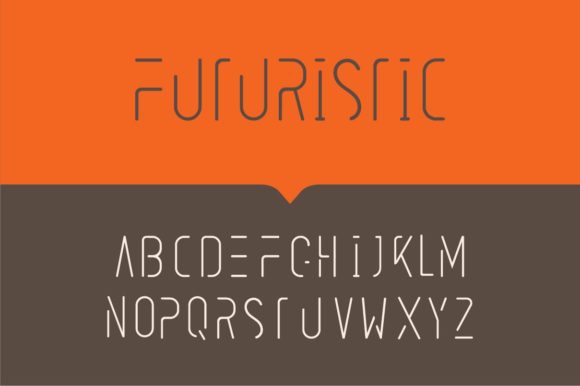
Futuristic Font: Elevate Your Designs with a Cute and Modern Display Font
In the realm of design, fonts play a pivotal role in bringing creative ideas to life. Among the myriad of fonts available, the Futuristic Font stands out for its unique blend of cuteness and modernity, coupled with an incredibly futuristic feel. This article aims to explore the characteristics, uses, and benefits of the Futuristic Font, making it a go-to guide for designers and crafters looking to elevate their projects.
What is Futuristic Font?
Futuristic Font is described as a cute and modern display font, specifically crafted to infuse any creative project with a futuristic vibe. Its design is not just about aesthetics; it’s about making a statement. Whether you’re working on digital content for Instagram, crafting calligraphy scripts for DIY projects, or brainstorming innovative ideas, this font is designed to turn your visions into true pieces of art.
Key Features of Futuristic Font
- Unique Aesthetic: The font boasts a distinctive look that is both cute and modern, setting it apart from more traditional fonts.
- Versatility: It’s incredibly versatile, suitable for a wide range of projects from digital media to print.
- Legibility: Despite its futuristic feel, the font maintains a high level of legibility, making it perfect for titles, headings, and short texts.
- Emotional Impact: The font has an undeniable charm that can evoke a sense of innovation and forward-thinking.
Uses of Futuristic Font
The applications of Futuristic Font are vast and varied. Here are some popular uses:
- Social Media Graphics: For Instagram posts, stories, and bio, this font can add a modern and engaging touch.
- DIY Projects: Whether you’re making handmade cards, posters, or craft items, Futuristic Font can add a unique flair.
- Branding: For startups and businesses looking to convey innovation and modernity, this font can be a great choice for logos and marketing materials.
- Web Design: Use it for headings and titles to create a striking first impression on your website.
For designers and crafters, Futuristic Font offers several benefits:
- Time-Saving: With its ready-to-use design, you can quickly add a professional touch to your projects without spending hours on custom typography.
- Consistency: Using a unique font like Futuristic Font can help in building a consistent visual brand across different platforms.
- Inspiration: Sometimes, all it takes is a different font to spark new ideas. This font’s futuristic feel can inspire fresh perspectives on your designs.
Tips for Using Futuristic Font Effectively
To get the most out of Futuristic Font, consider the following tips:
- Mix and Match: Combine it with simpler fonts for body text to create visual hierarchy.
- Play with Sizes: Use varying sizes to emphasize certain words or phrases.
- Experiment with Colors: This font looks great in bold, bright colors, but also try it in metallic or gradient effects for added depth.
Futuristic Font is more than just a typeface; it’s a tool for creativity and innovation. Its unique blend of modernity and futurism makes it an excellent choice for designers and crafters looking to make a statement. Whether you’re creating digital content, working on DIY projects, or developing a brand identity, this font has the potential to elevate your work into a true piece of art. Embrace the future of design with Futuristic Font and watch your creative ideas soar to new heights.